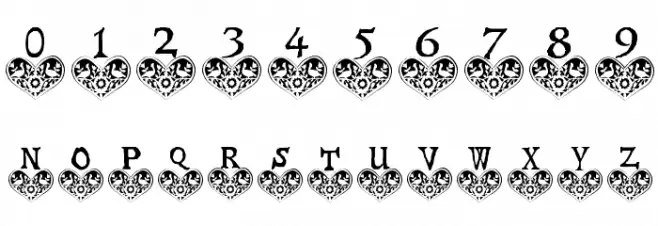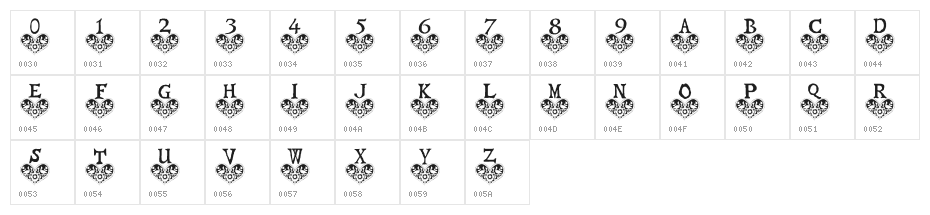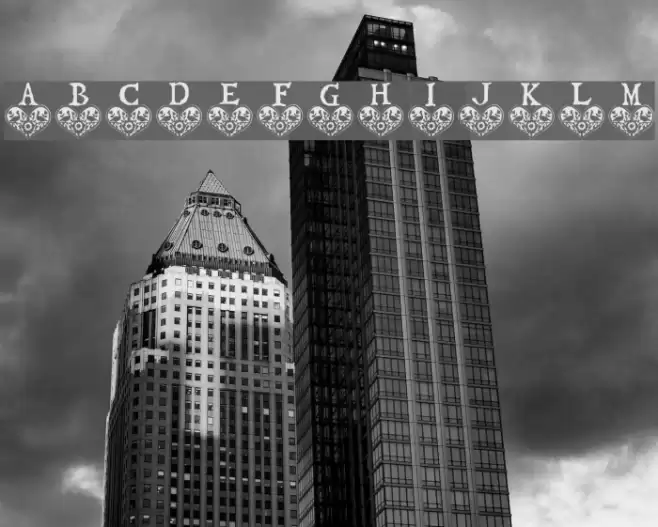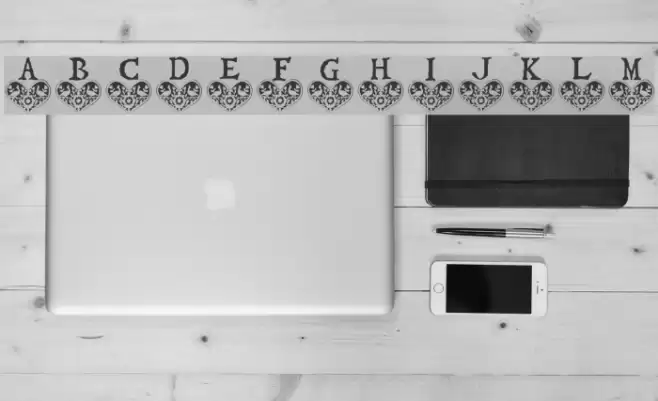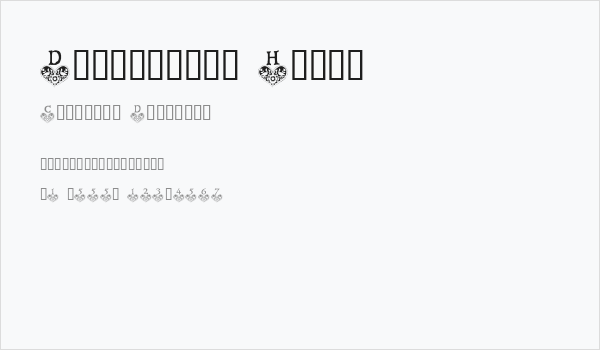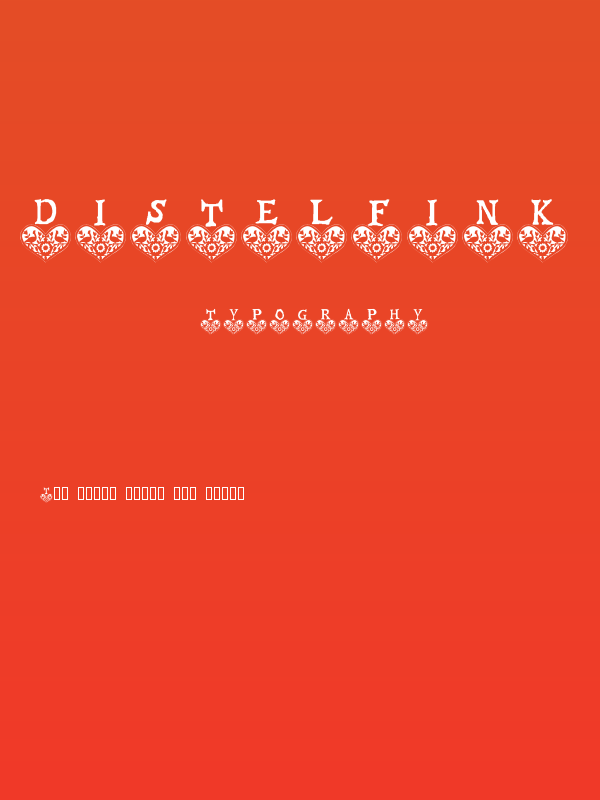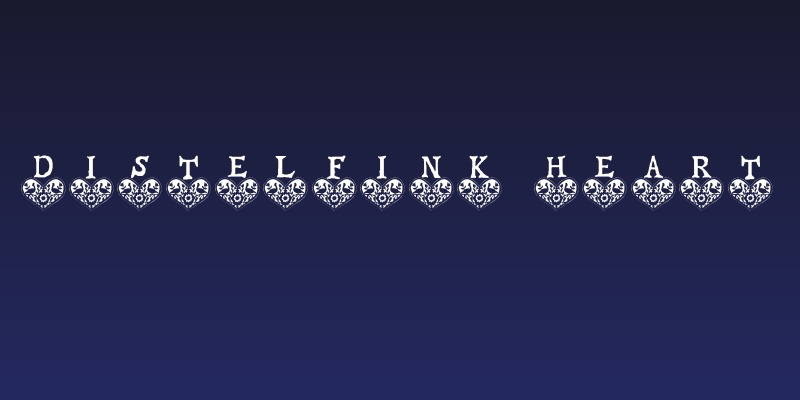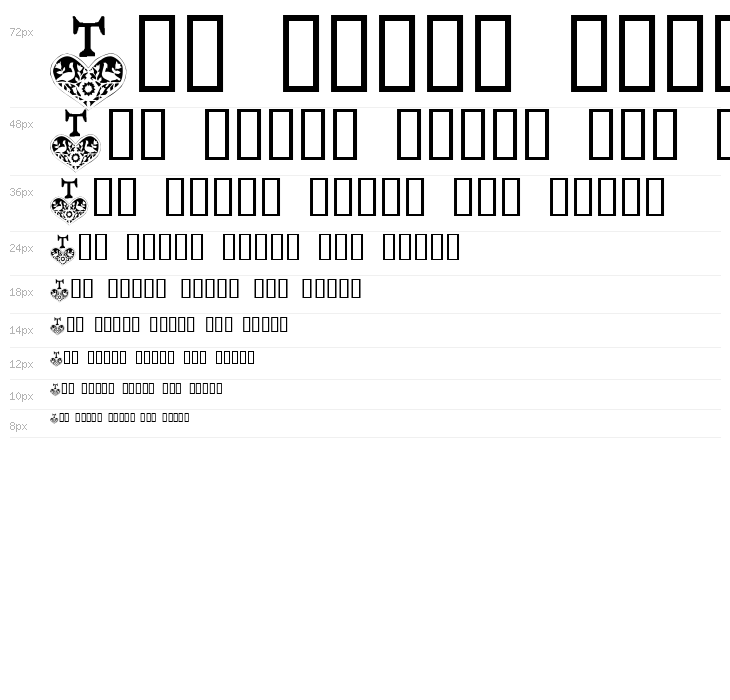
Distelfink Heart Font
Distelfink Heart Description
This font features a unique and decorative style where each character is embedded within an ornate heart shape. The letters and numbers are bold and slightly condensed, providing a striking contrast against the intricate heart designs that surround them. The font combines elements of traditional serif styles with a playful, decorative twist, making it stand out for its artistic flair. The heart motifs are detailed with floral and symmetrical patterns, adding a touch of elegance and whimsy. This font is ideal for projects that require a romantic or festive theme, as it merges classic typography with decorative elements seamlessly.